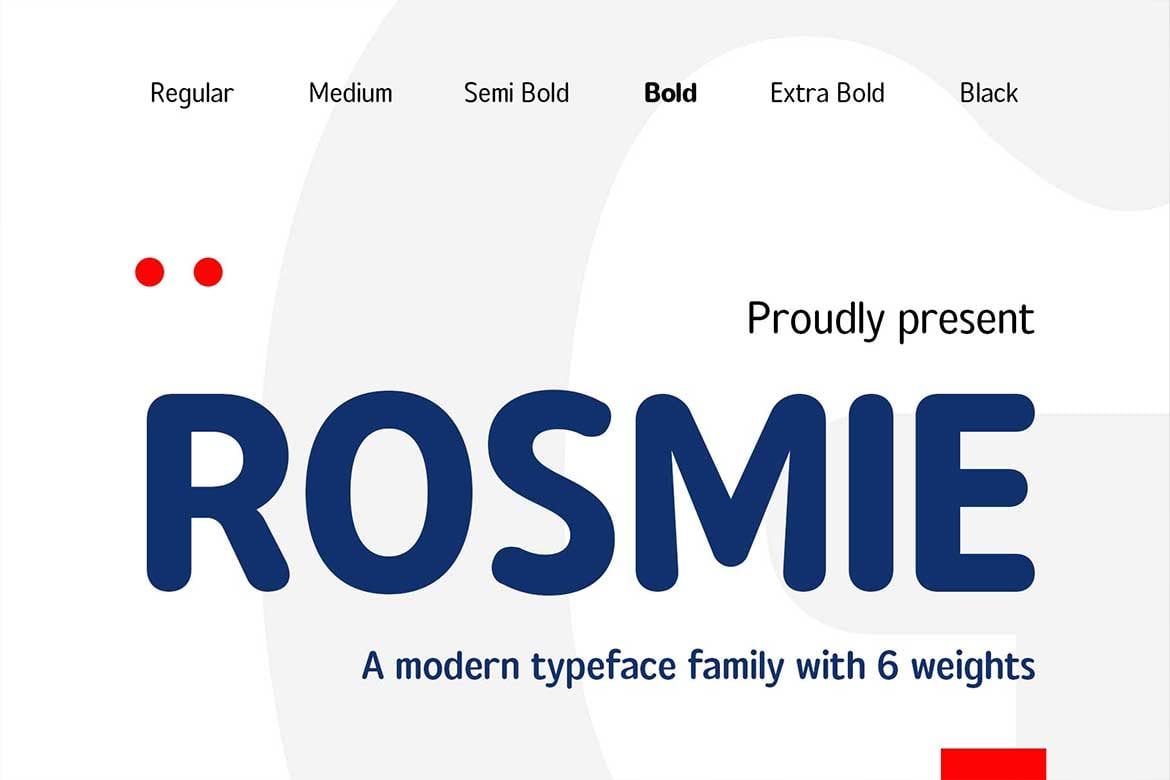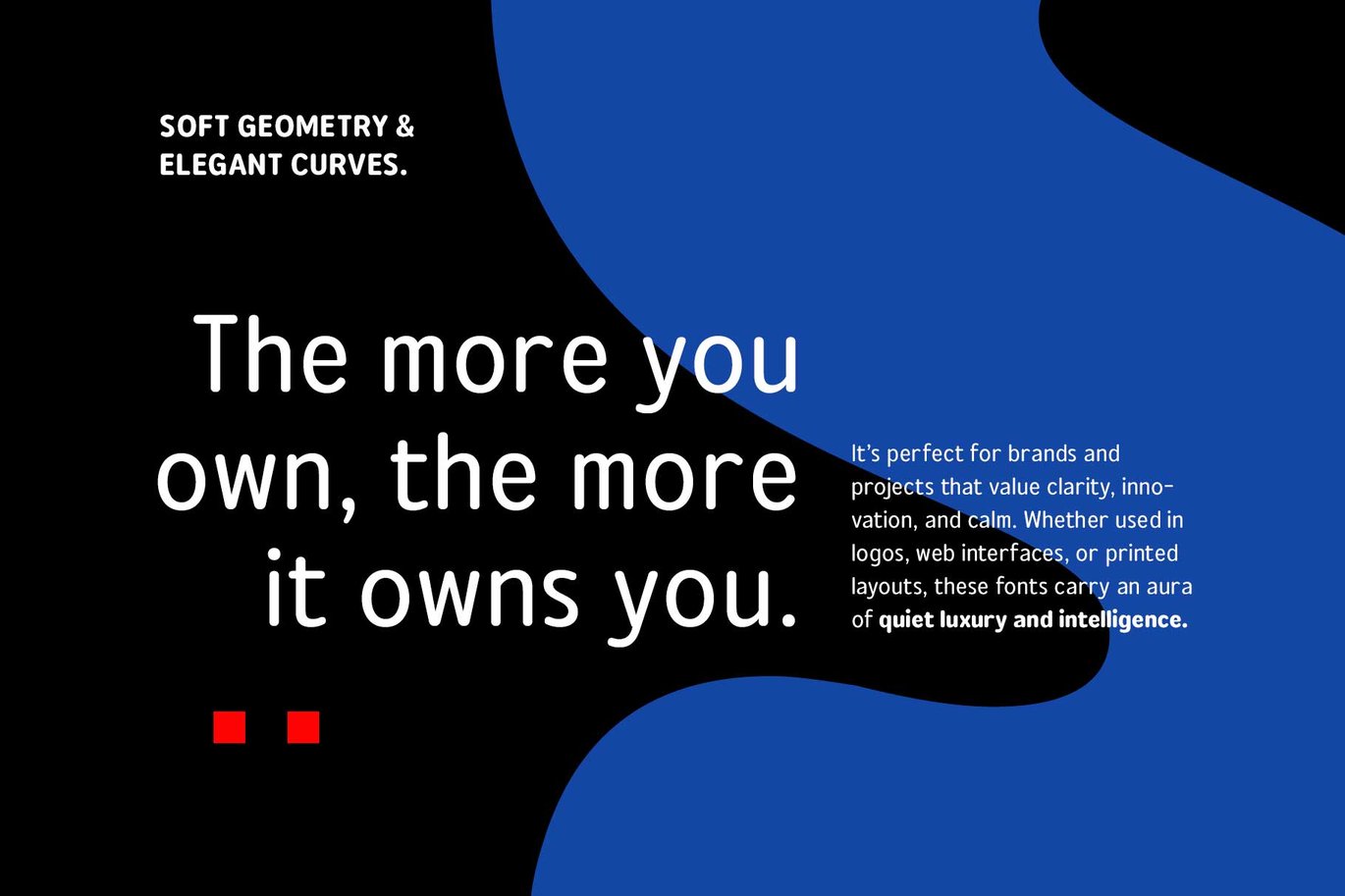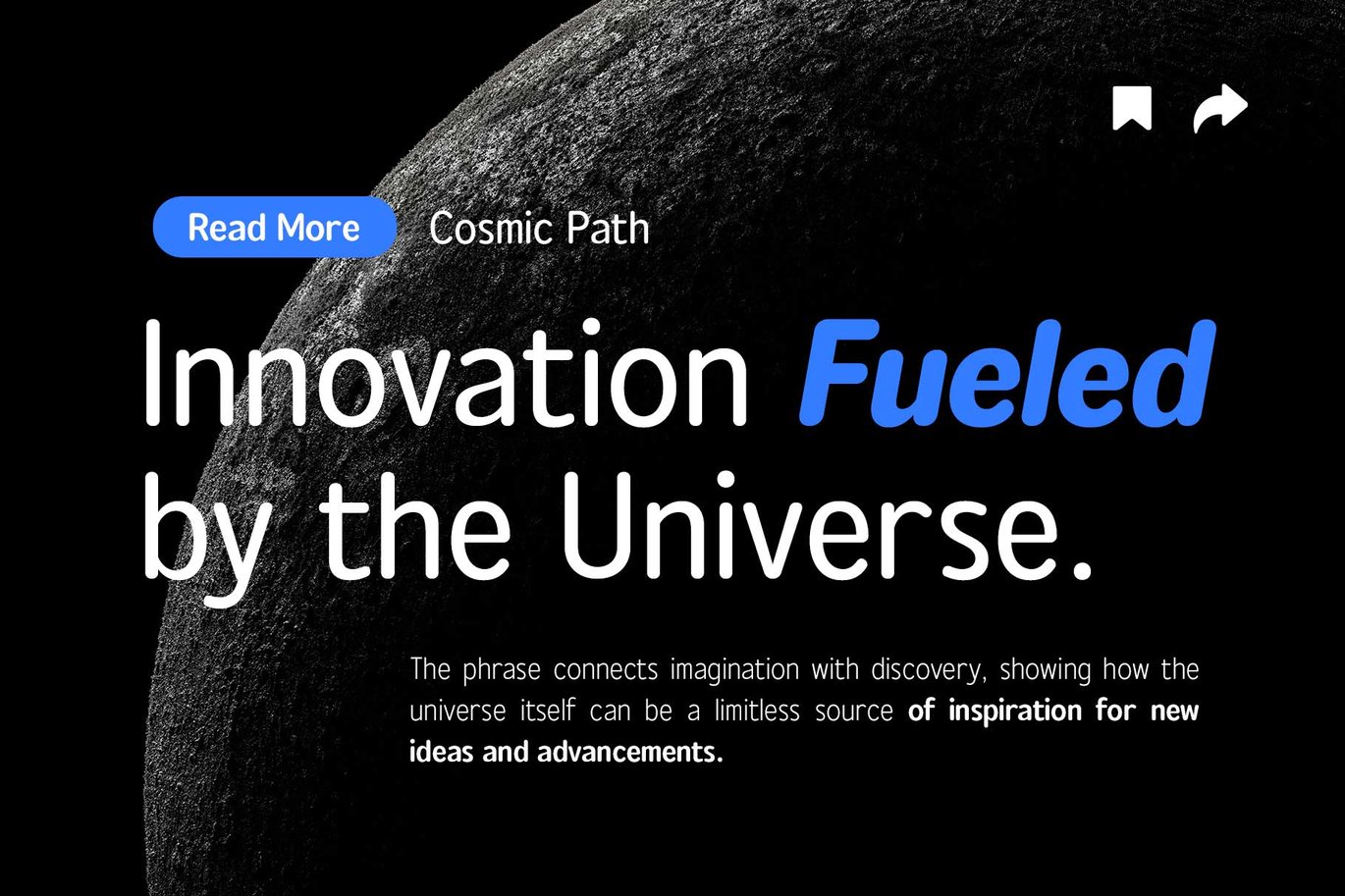
Rounded Sans Family – Rosmie Font
Rosmie is a rounded sans serif family from Arterfak Project, inspired by classic typefaces from the 1970s. Every stroke ends in a soft, rounded tip, which gives the letters a friendly, approachable tone, but the shapes themselves are clean and even. Arterfak designed it to be readable at text sizes too, not just as a display face.
The family has six weights, Regular, Medium, Semi Bold, Bold, Extra Bold and Black, and each has a slanted version. That makes Rosmie flexible enough for a full brand system: bold for the logo, regular for paragraphs and slanted for emphasis.
Best uses for Rosmie
• Logos and labels for food, kids’ and lifestyle brands
• Magazine and book layouts
• Posters and retro-style graphics
• Websites and app interfaces
• Packaging and stickers
Rosmie can carry a whole layout on its own, but a serif adds contrast. Fraunces brings a matching 1970s warmth to headlines. For long-form reading, Lora works well beside Rosmie subheads. If you need a monospace for prices or code, Space Mono fits its retro style.
What free font is similar to Rosmie?
For a free, open-licence rounded sans, try Nunito or Varela Round on Google Fonts. Nunito comes in a wide range of weights and is the closer match for a full family.